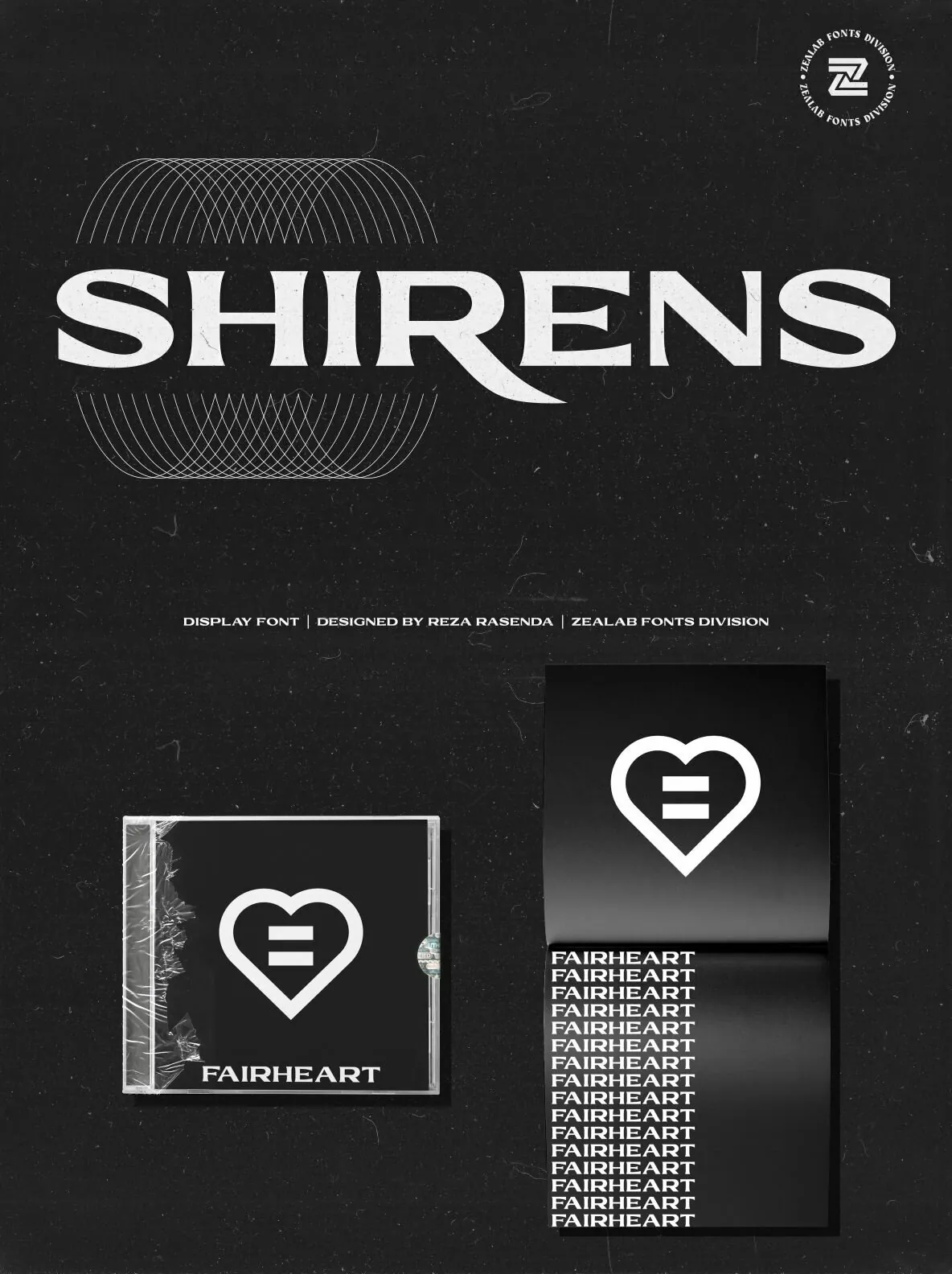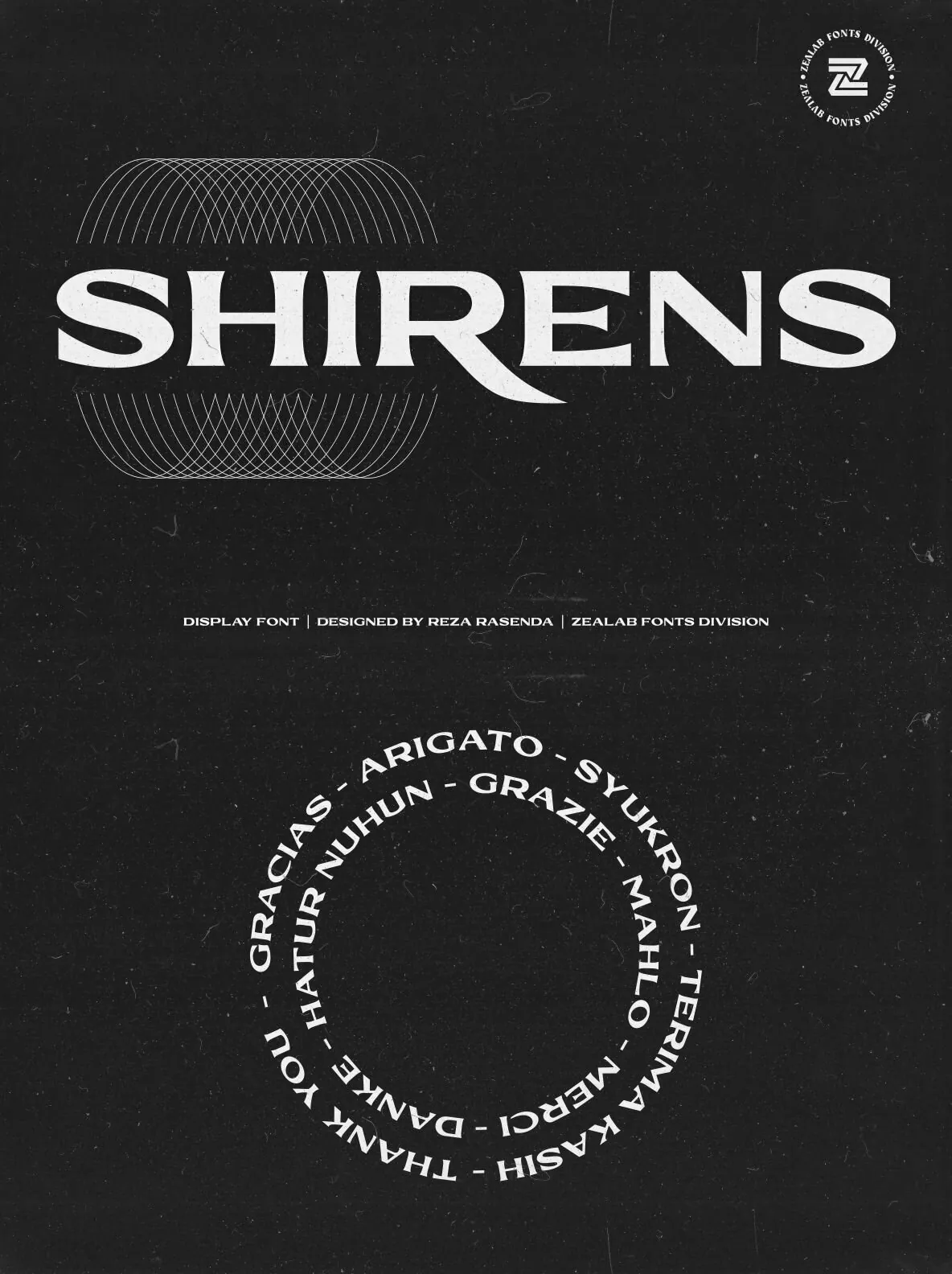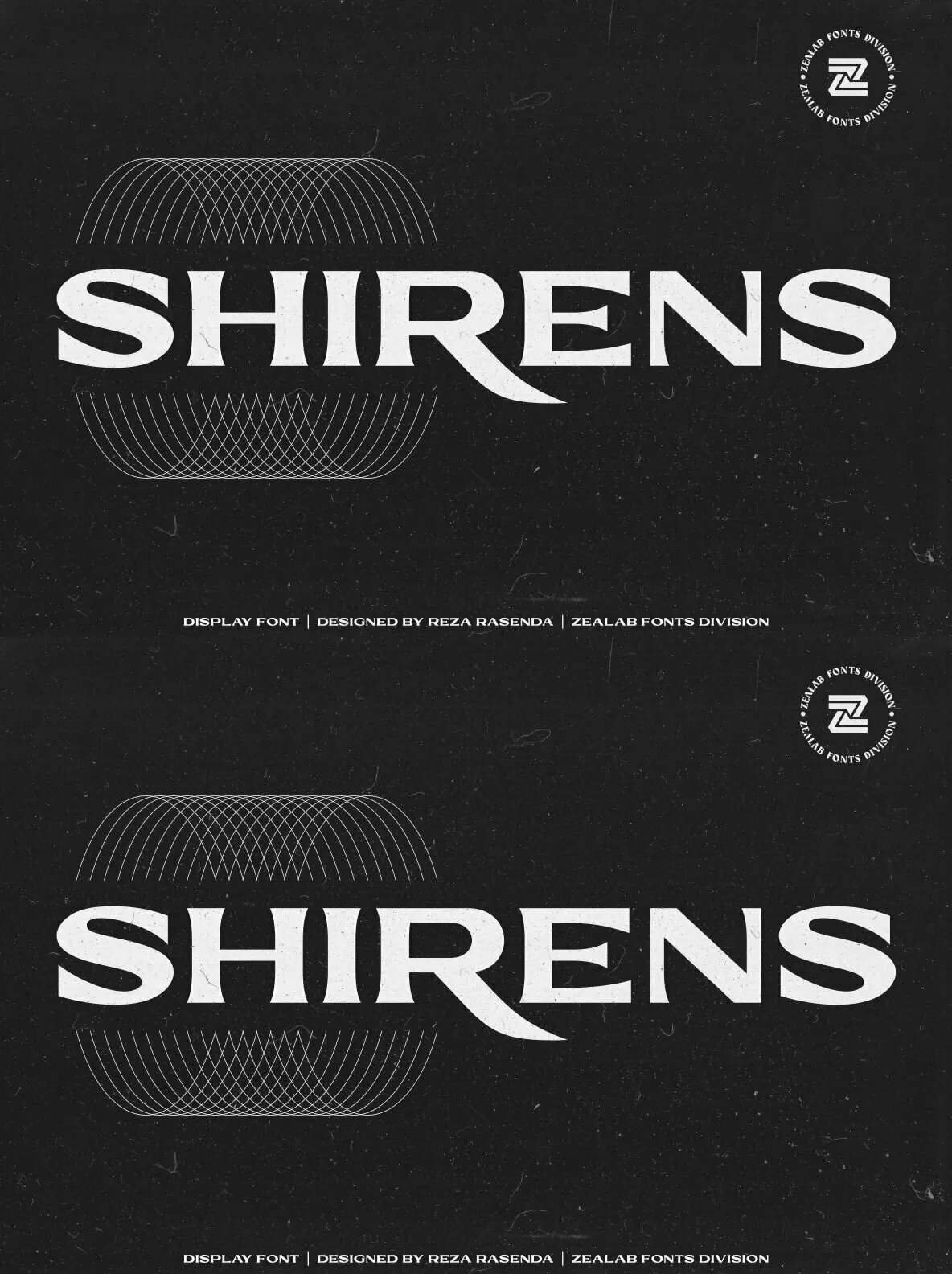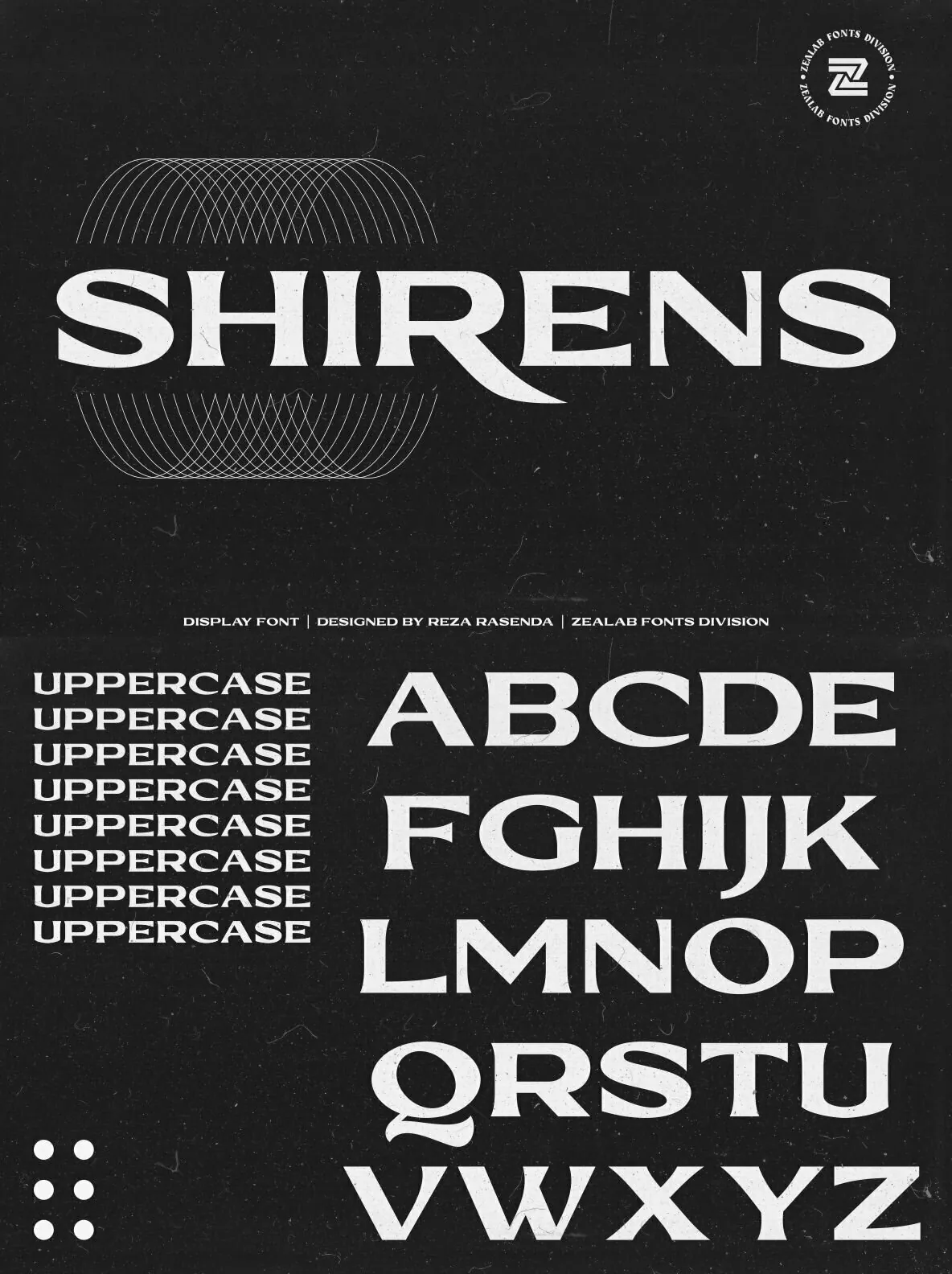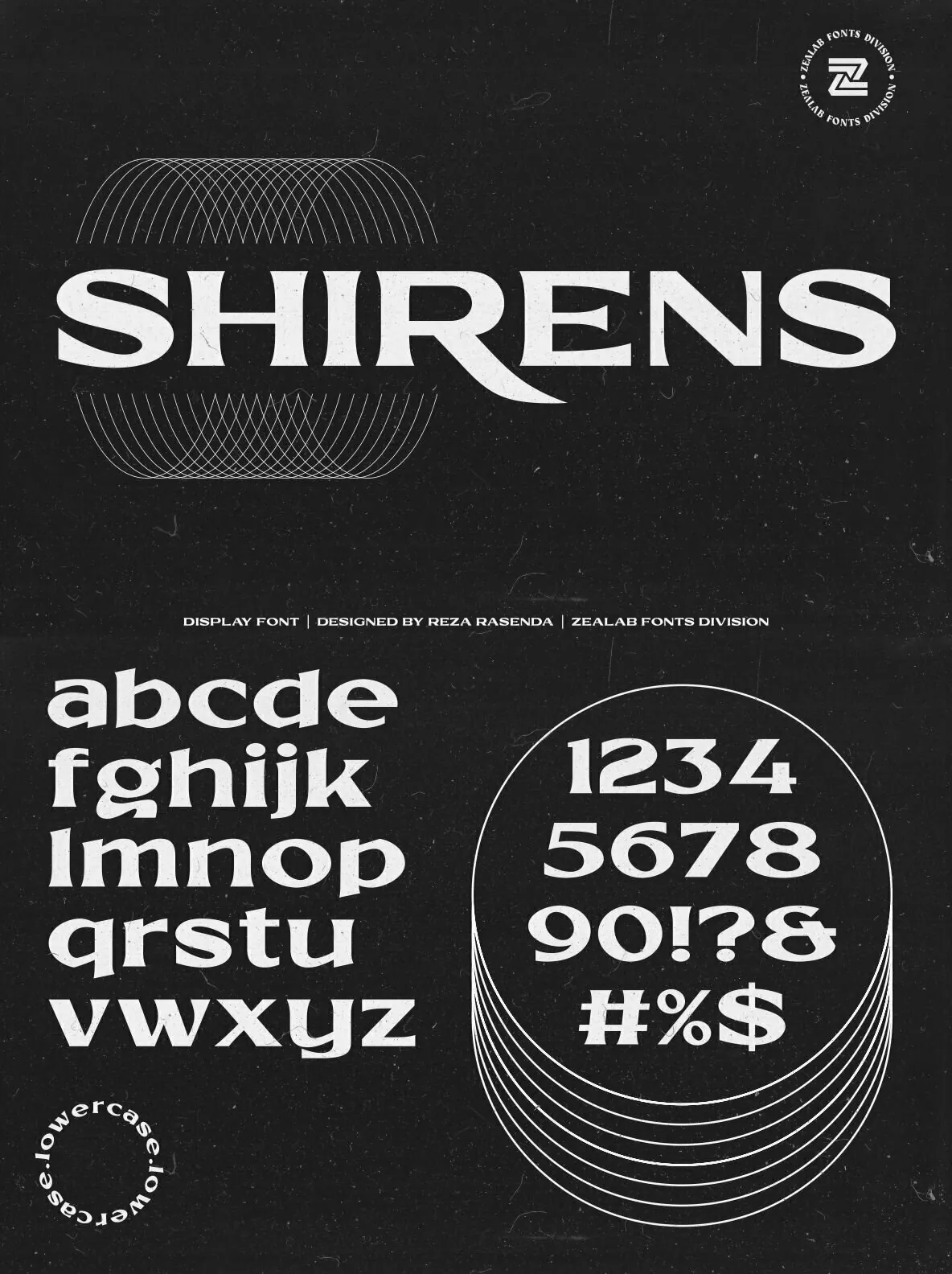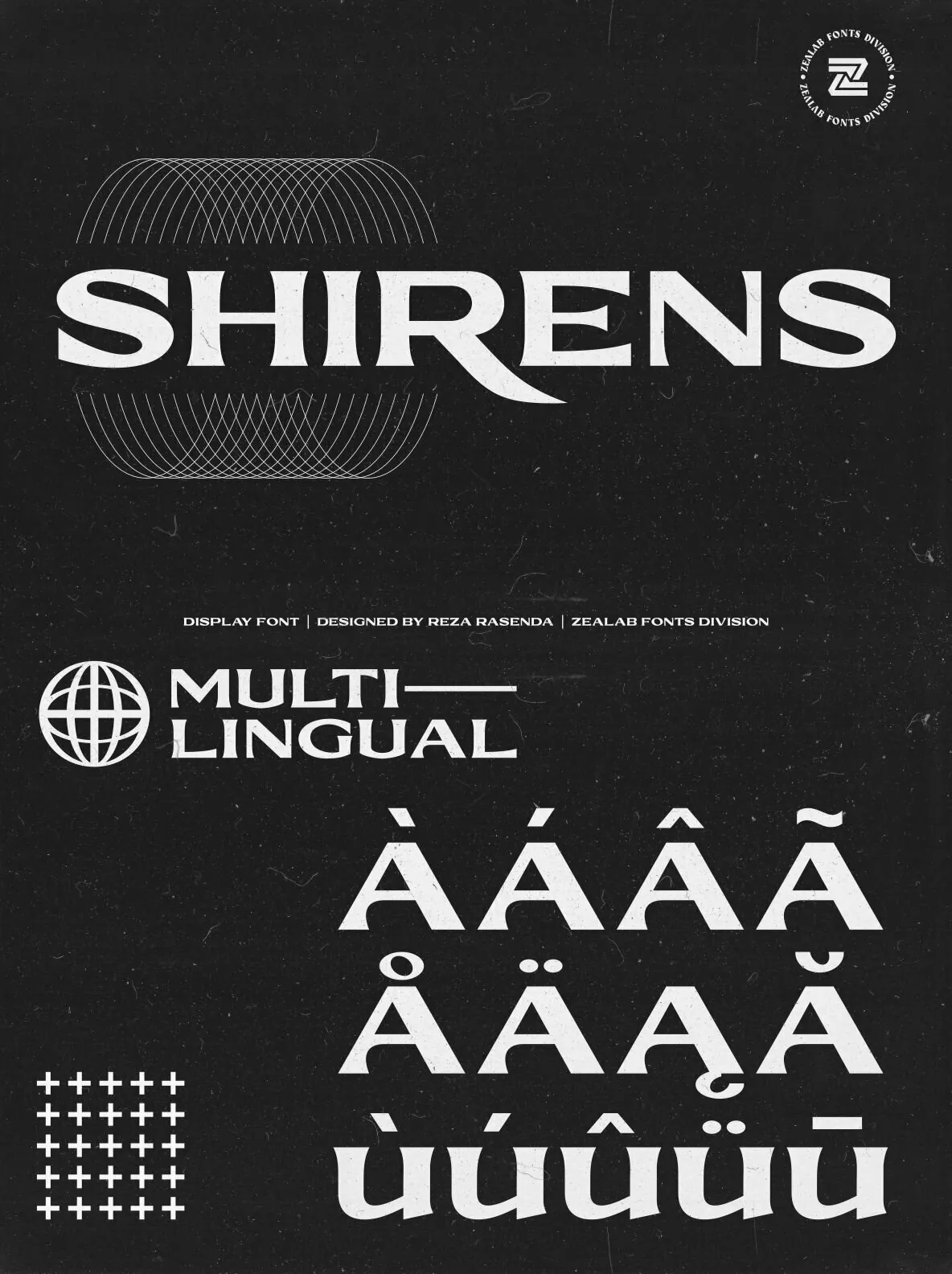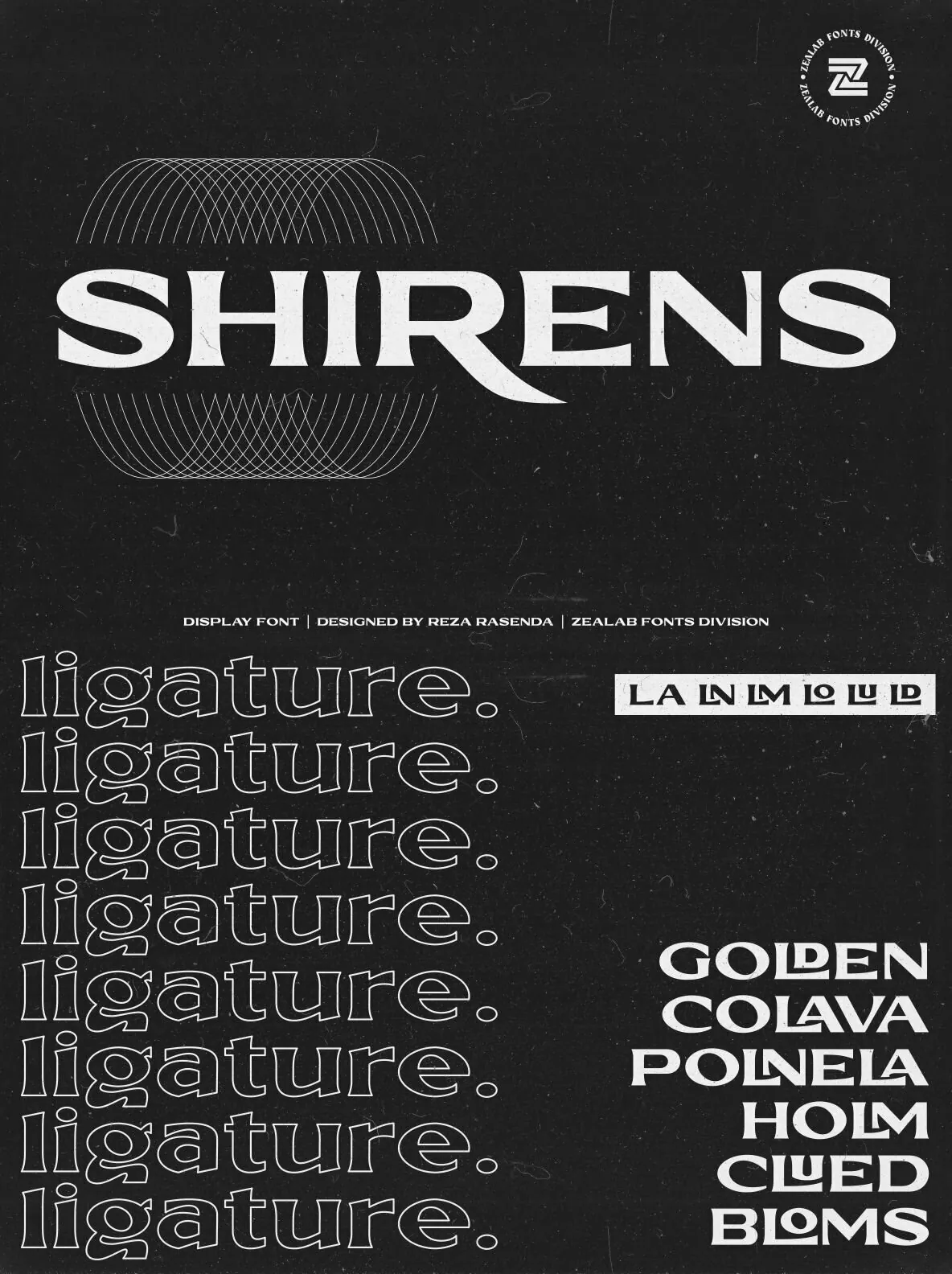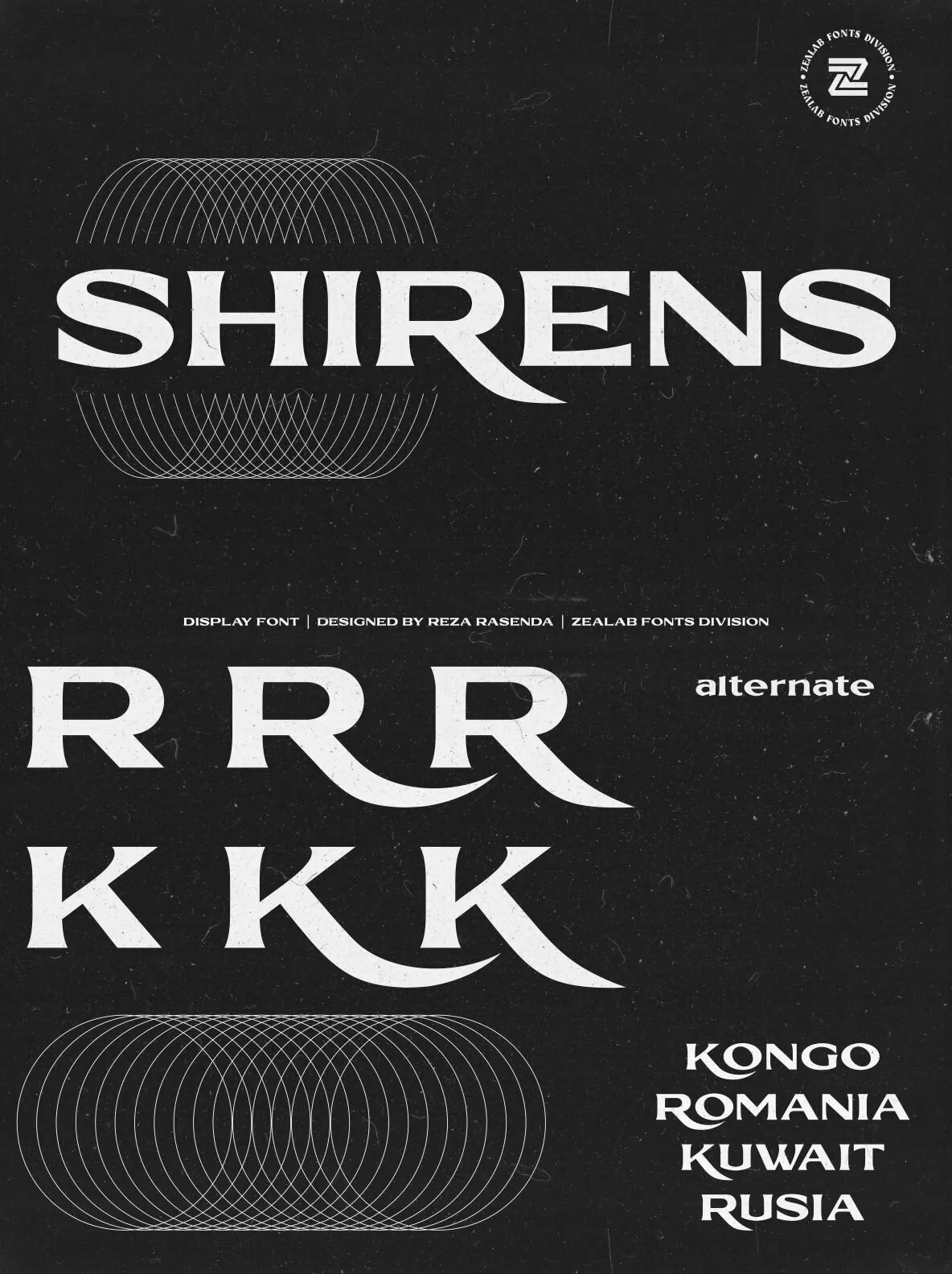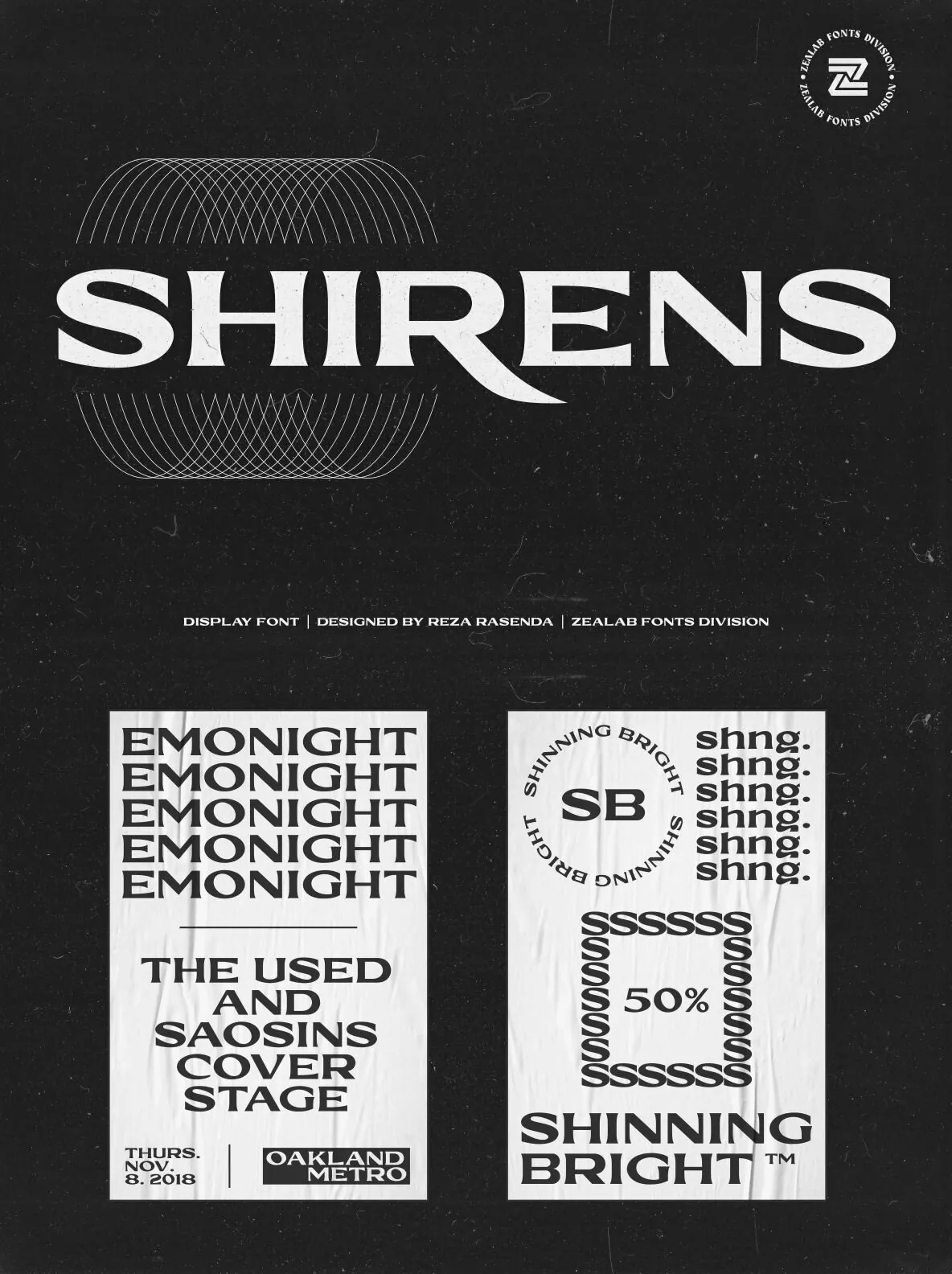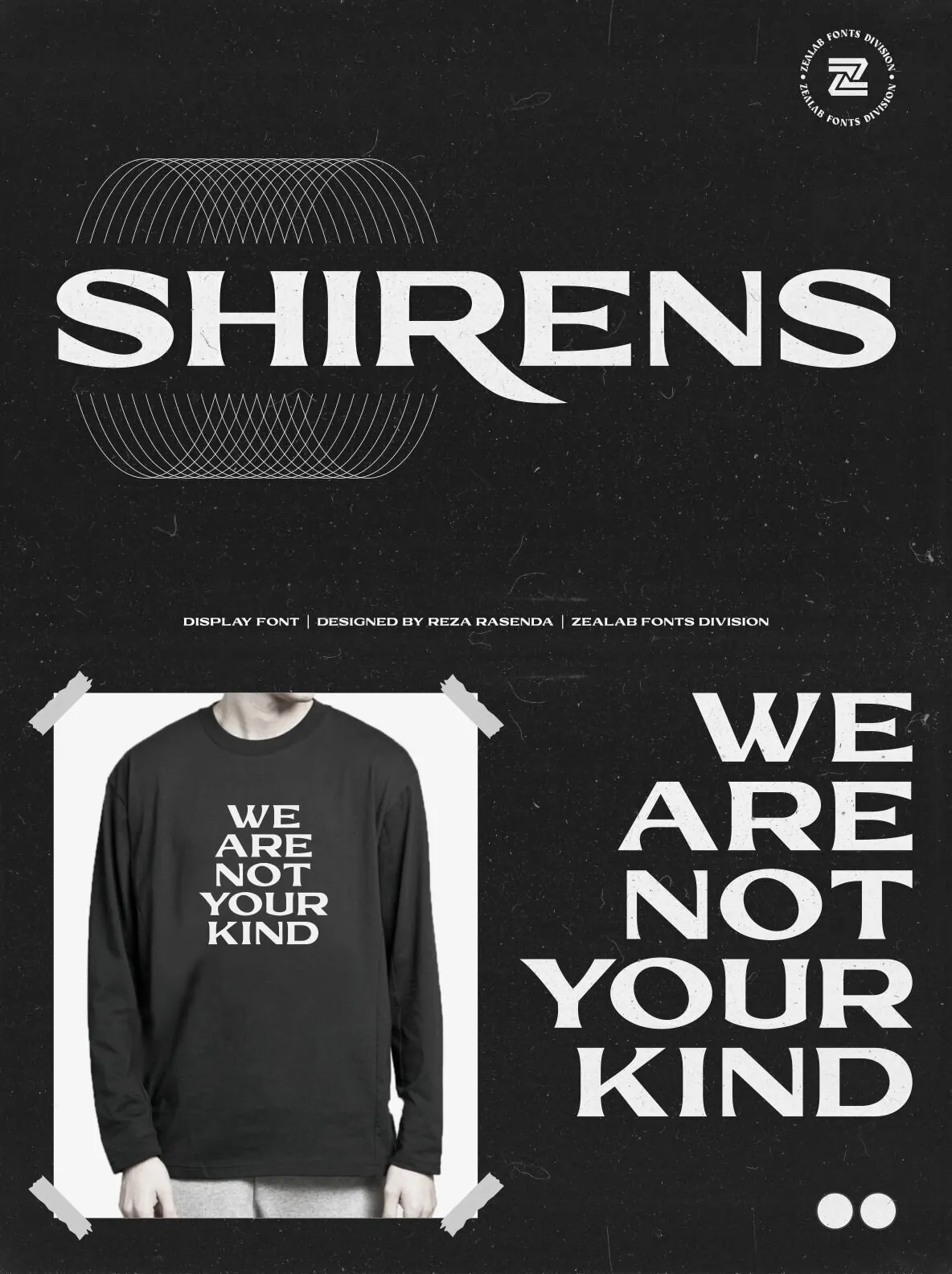
SHIRENS is a font inspired by Emo/metal/harcore music scene and the hype street wear/apparel. include uppercase and lowercase, ligature and alternate style,and also multilingual support, SHIRENS Really fit for Band wordmark, album cover , video tittle, sticker, clothing brand name, t-shirt designs, badges designs, banner, flyer, etc. Just look how it performs on the preview that I have provided, you will see its capabilities. But it will also work well with other themes.